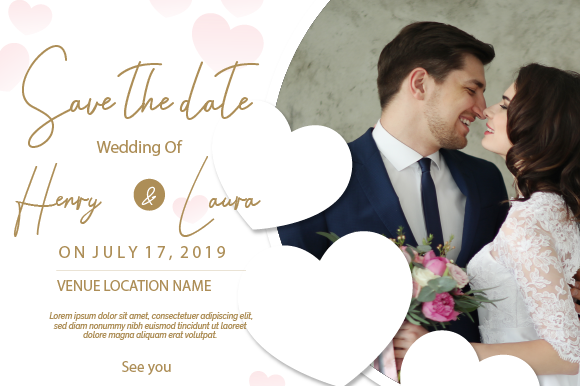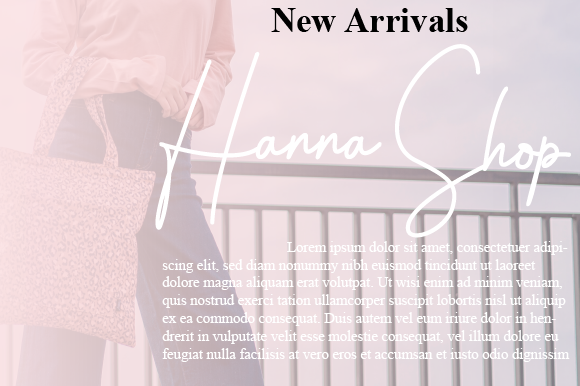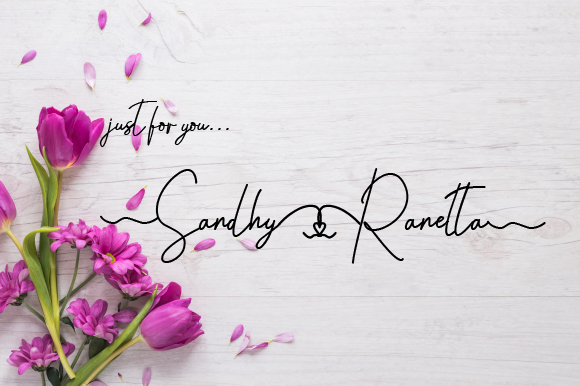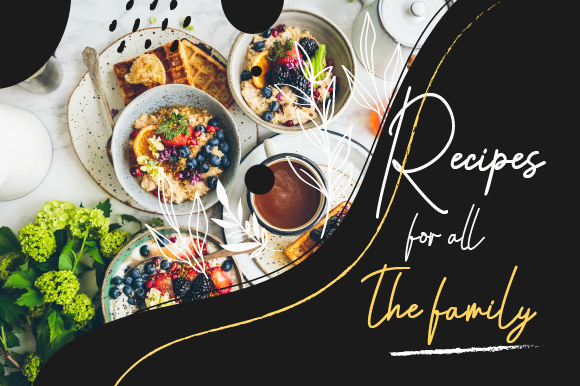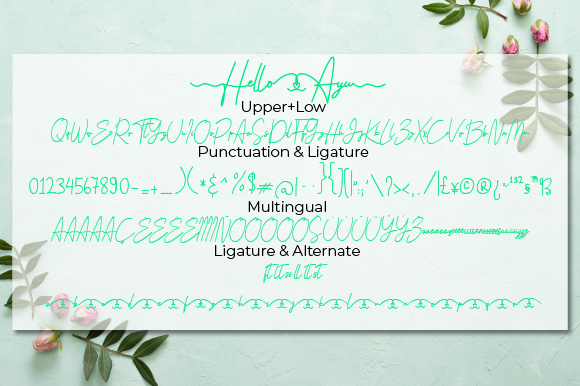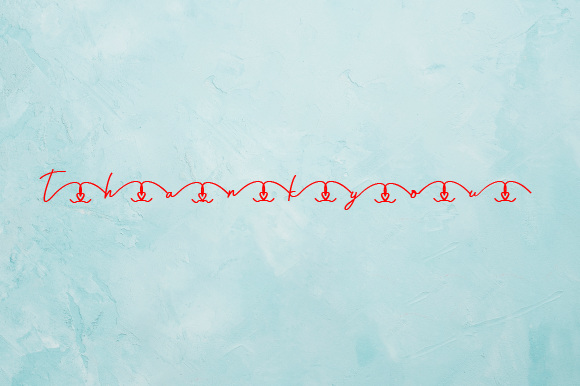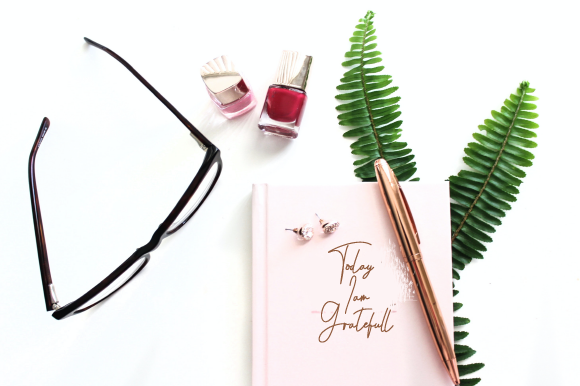
Hello Ayu Font
About Hello Ayu Font
Hello Ayu feels playfully nostalgic and delivers an incredible delicate aesthetic. Use this handwritten font to add that special touch to any design idea you can think of!